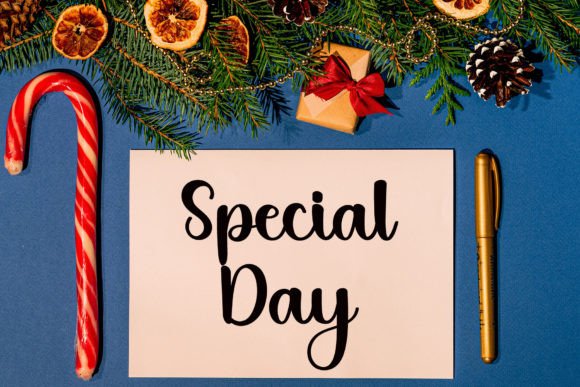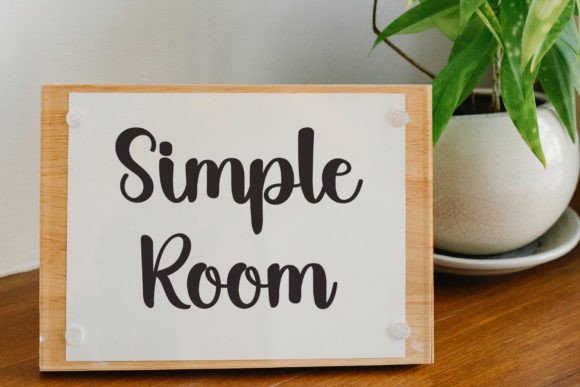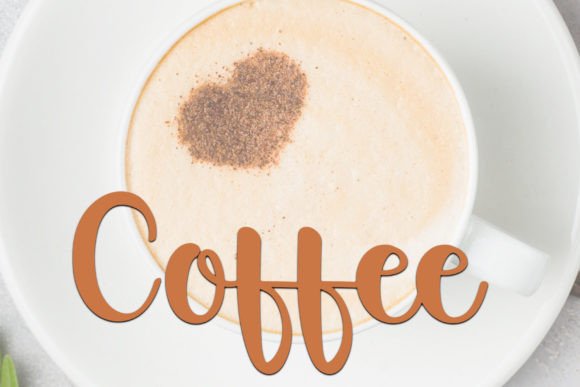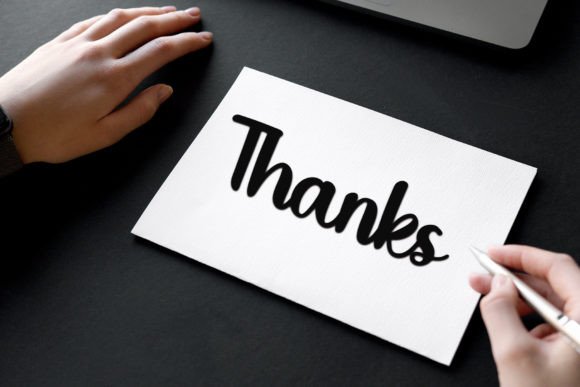
Introducing Daily Font: Elevate Your Designs with Timeless Elegance
Are you tired of using the same old fonts in your designs? Look no further than Daily Font, a stylish handwritten font that brings a touch of sophistication and contemporary flair to any project. Inspired by timeless classic calligraphy, Daily Font is the perfect choice for designers and crafters seeking to add a dash of elegance to their work.
The Story Behind Daily Font
Daily Font was crafted with the goal of creating a balanced and varied typeface that would enhance the beauty of any project. With its roots in classic calligraphy, this font boasts a unique blend of traditional and modern elements, making it an excellent choice for a wide range of design applications. Whether you’re working on a logo, branding materials, or digital content, Daily Font is sure to make a lasting impression.
Key Features of Daily Font
- Stylish Handwritten Design: Daily Font features a beautiful, handwritten design that adds a personal touch to any project.
- Contemporary Atmosphere: With its sleek lines and modern aesthetic, Daily Font brings a fresh and contemporary feel to your designs.
- Impeccable Form: This font was designed with impeccable form in mind, ensuring that every letter and character is perfectly crafted to create a cohesive and polished look.
- Balanced and Varied: Daily Font features a balanced and varied design, making it perfect for use in a wide range of applications, from headings and titles to body text and more.
Why Choose Daily Font?
So why choose Daily Font over other fonts on the market? Here are just a few reasons why designers and crafters are falling in love with this beautiful typeface:
- Versatility: Daily Font is incredibly versatile, making it suitable for use in a wide range of design applications, from print materials to digital content.
- Elegance: With its classic calligraphy roots, Daily Font brings a touch of timeless elegance to any project.
- Readability: This font is designed to be highly readable, making it perfect for use in body text, headings, and more.
- Uniqueness: Daily Font’s unique blend of traditional and modern elements ensures that your designs will stand out from the crowd.
Using Daily Font in Your Designs
So how can you start using Daily Font in your designs? Here are a few tips to get you started:
- Pair it with Other Fonts: Daily Font pairs beautifully with other fonts, making it easy to create stunning contrast and visual interest in your designs.
- Experiment with Colors: This font looks great in a wide range of colors, so don’t be afraid to experiment and find the perfect hue for your project.
- Use it in Headings and Titles: Daily Font is perfect for use in headings and titles, where its elegant design can really shine.
- Add it to Your Brand Identity: Consider adding Daily Font to your brand identity, where its timeless elegance can help to create a lasting impression on your customers.